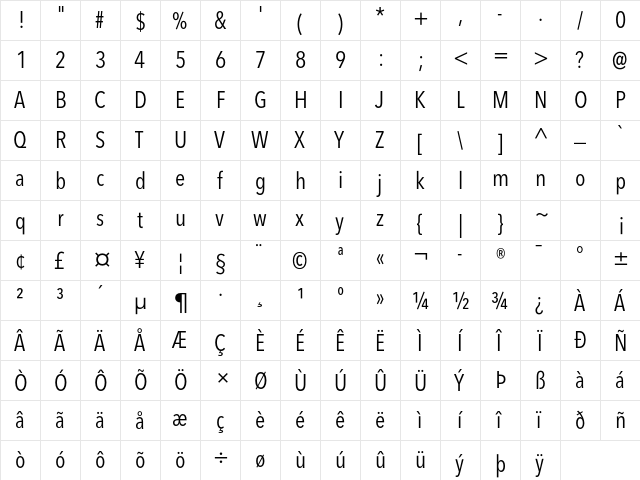
Avenir Next LT Pro Condensed
| Foundry | Linotype Library GmbH |
| Designer | Adrian Frutiger and Akira Kobayashi |
Design Context for Avenir Next LT Pro Typeface
Avenir Next LT Pro is a composed and adaptable typeface that performs quietly and consistently across a wide range of design contexts. Its slender proportions lend an understated elegance to any composition. The condensed width makes it efficient for tight spaces without sacrificing legibility.